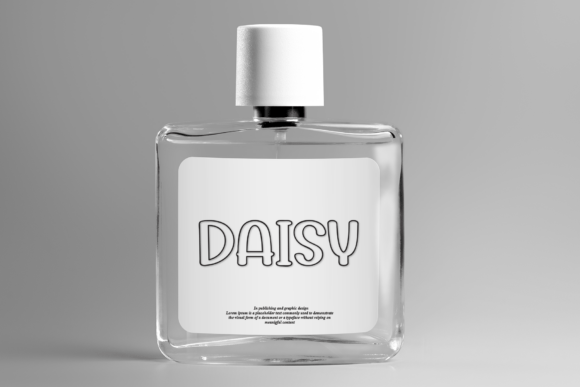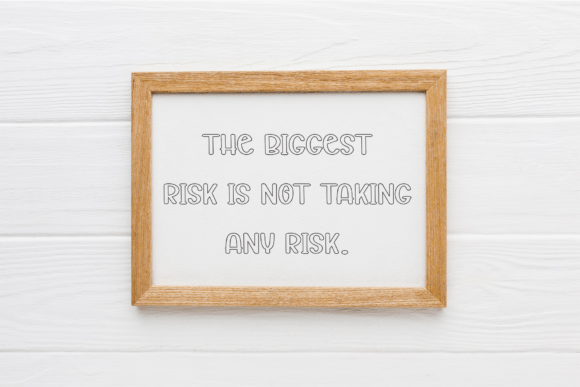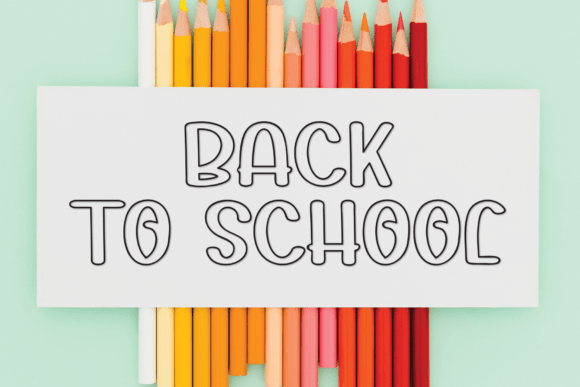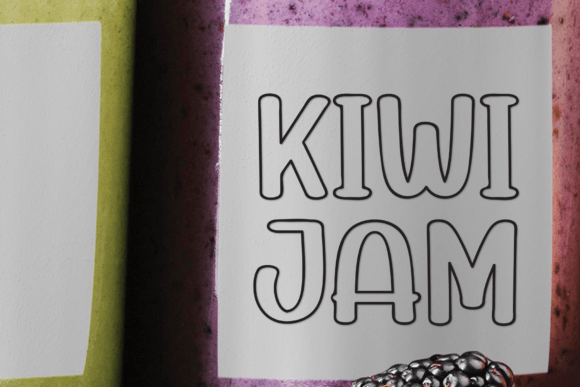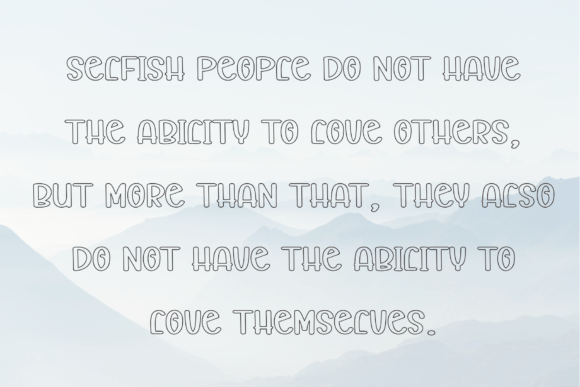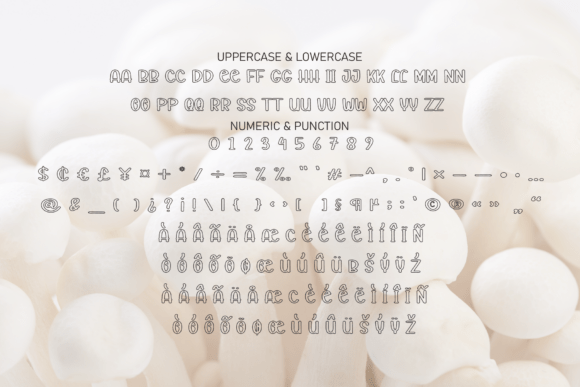
Introduction to Baby Mushroom Font
Exuding charm with its handcrafted style, the interactive display font will definitely leave its mark.
Adorable and dynamic, its raw personality adds a playful element to your creations Perfect for romantic wedding invitations, heartwarming greeting cards, or any design craving for an infusion of jovial essence.